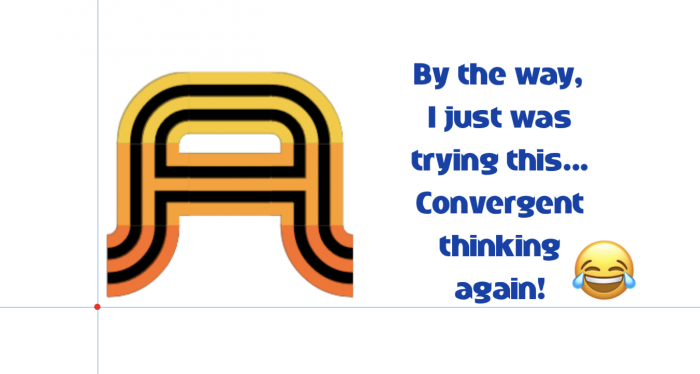
@four - Very soothing choice of inner colors.  :^)
So nice! You're the Triline King, compañero! (I'm in love with your chocomotion, you know.)
The color scheme looks pretty nice. Also, I wonder if a black and white version of this is possible?
you could colour the black and leave white the coloured.
Congratulations! FontStruct Staff have deemed your FontStruction worthy of special mention. “anois” is now a Top Pick.
Congrats, compa!
I like how you somehow put colors in the letters, excellent work!
omgosh i love those colors
the color scheme looks like lithuania's flag
A BIG WOOT-WOOT FOR YOU! I am artsy, and this is VERY colorful!
How did you do the colors????